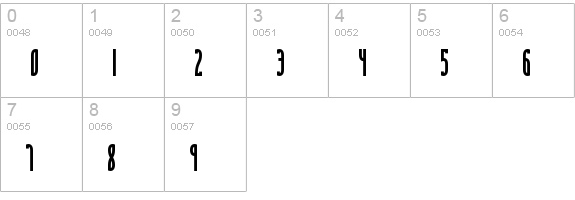
Saunder BRK font is a versatile and modern typeface that combines elegance with a touch of playfulness. Its clean lines and rounded edges make it perfect for a wide range of design projects, from branding to signage to social media graphics. The smooth curves and bold strokes of Saunder BRK font give a unique and eye-catching look to any text or headline. What sets Saunder BRK font apart is that it is available for free download at FontsMarket.com. This means that you can easily access this stylish font and use it in your projects without any cost. Whether you are a graphic designer, a content creator, or a student looking to enhance your work, Saunder BRK font offers a high-quality and professional option that won't break the bank. With its modern aesthetic and easy accessibility, Saunder BRK font is a great choice for anyone looking to add a touch of sophistication to their designs. Download it for free today at FontsMarket.com and elevate your projects with this stylish and versatile typeface.